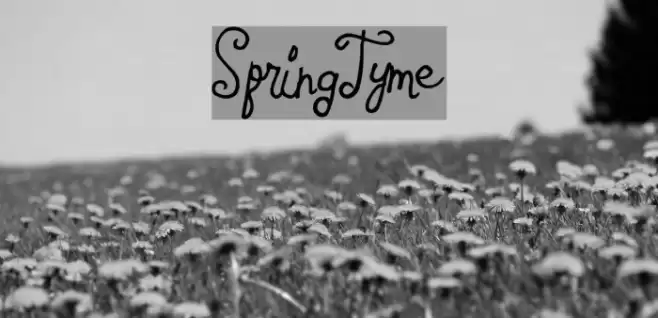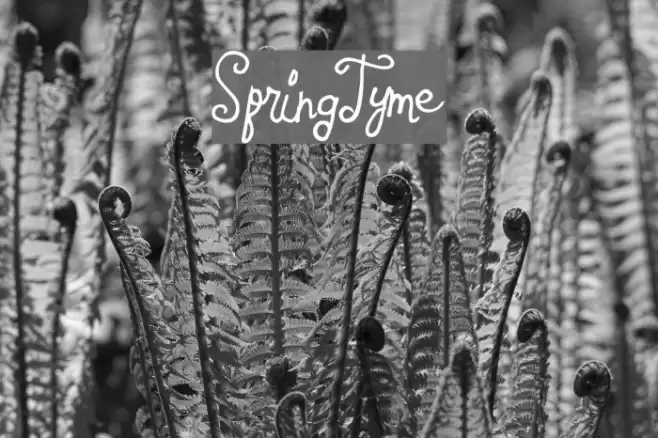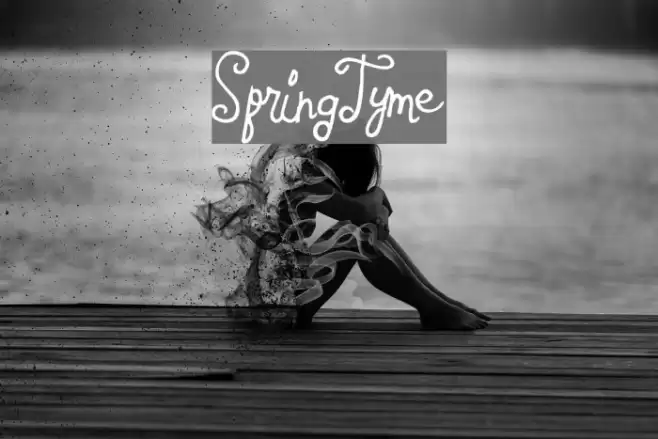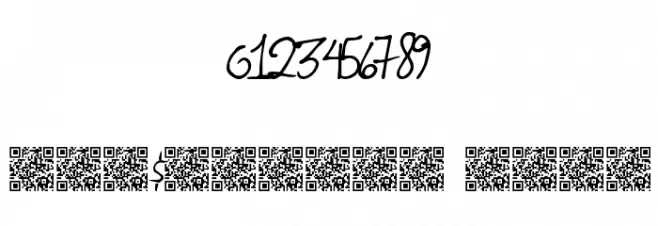
SpringTyme Font
SpringTyme Description
This font features a whimsical and playful design, characterized by its curly and looping strokes. Each letter is crafted with a unique flair, incorporating decorative swirls that give it a lively and dynamic appearance. The uppercase letters are particularly ornate, with intricate loops and curves that add a sense of movement and energy. The lowercase letters maintain a similar style, though slightly more subdued, ensuring readability while retaining the font's playful essence. Numbers and special characters are designed to match the overall aesthetic, making the font versatile for various creative applications.
A whimsical and playful font with curly, looping strokes and decorative swirls from Curly fonts.